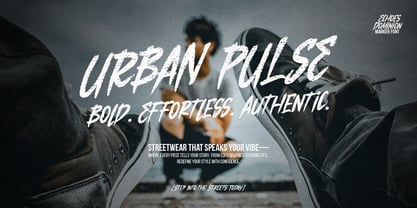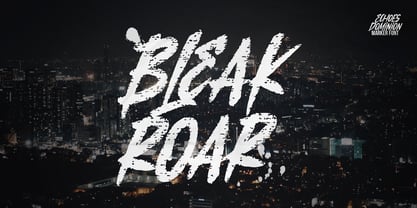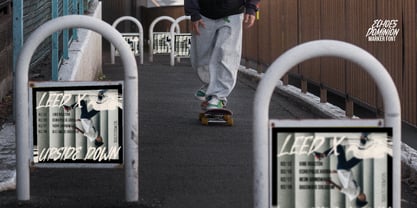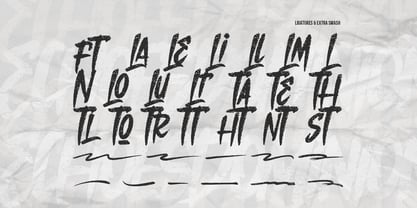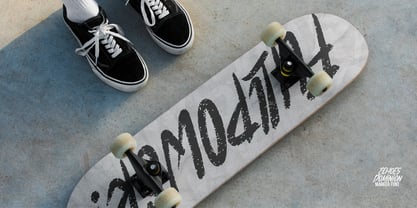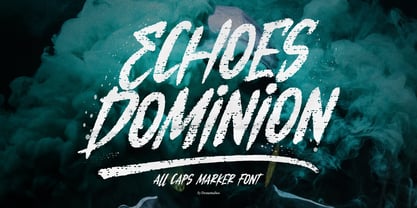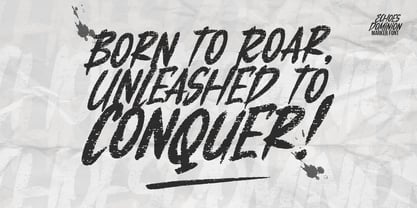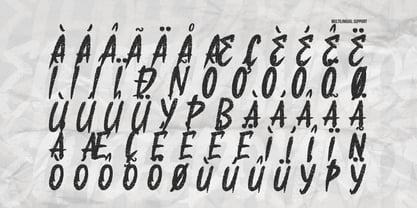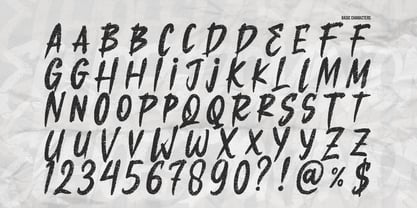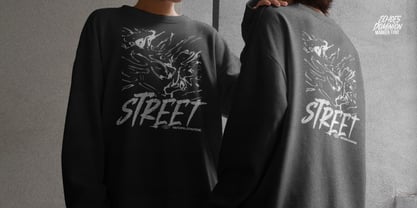
Echoes Dominion
by Denustudio
The Echoes Dominion Font Family was designed by Dede Nugraha and published by Denustudio. Echoes Dominion contains 2 styles and family package options. More about this family
Echoes Dominion | Marker Font, from Denustudios, suitable for any projects such as: logos, branding projects, homeware designs, product packaging, mugs, quotes, posters, shopping bags, t-shirts, book covers, name card, invitation cards, greeting cards, label, photography, watermark, special events, and all your other lovely projects that need a Marker Font taste.
• Alternate and Ligature
• Fonts include multilingual support